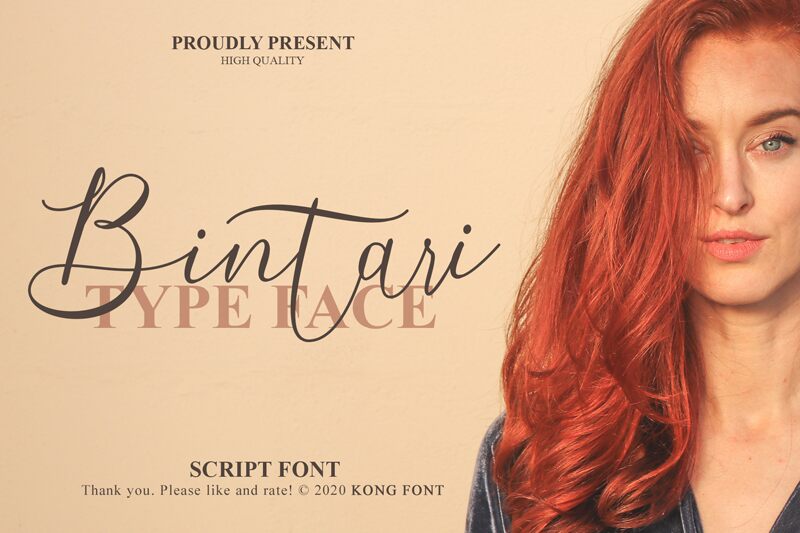
Bintari font family designed by Kong Font consists of 4 different handwritten font styles. This expressive, graceful and artistic flowing typeface combines elegance with sophistication to produce a beautiful modern script. Featuring smooth character outlines and a couple of decorative elements such as alternate tails and ligatures, this romantic and expressive free font family finds a special place within detailed design projects.
Wherever an elegant touch is required, Bintari with its stylish designs is ready to deliver. Use it in your posters, advertisement designs, branding, as well as presentations. Add it to packaging projects, social media posts, and website designs for an extra special touch. The font family can equally be great for labels, book covers, or magazine posters.